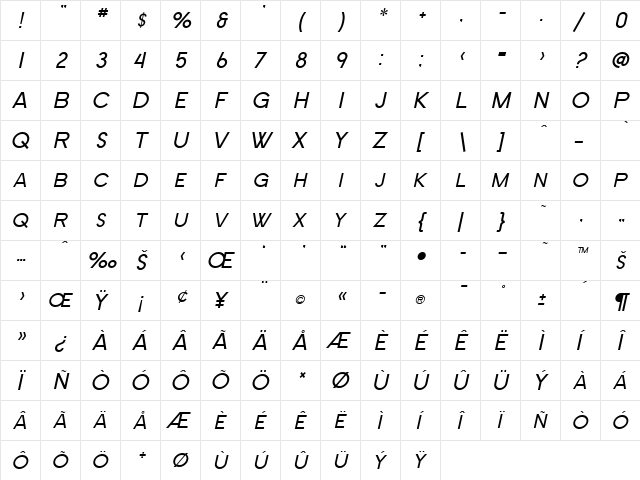
SF New Republic SC Italic
Design Context for SF New Republic SC Typeface
SF New Republic SC offers clean, dependable letterforms without strong stylistic allegiance, making it a practical choice for designers who need flexibility. The dynamic lean of this cut emphasises speed and emphasis in any layout.
Pro Tip: Try SF New Republic SC for annotation and caption copy alongside an upright companion — the contrast in angle creates a dynamic but ordered typographic system.